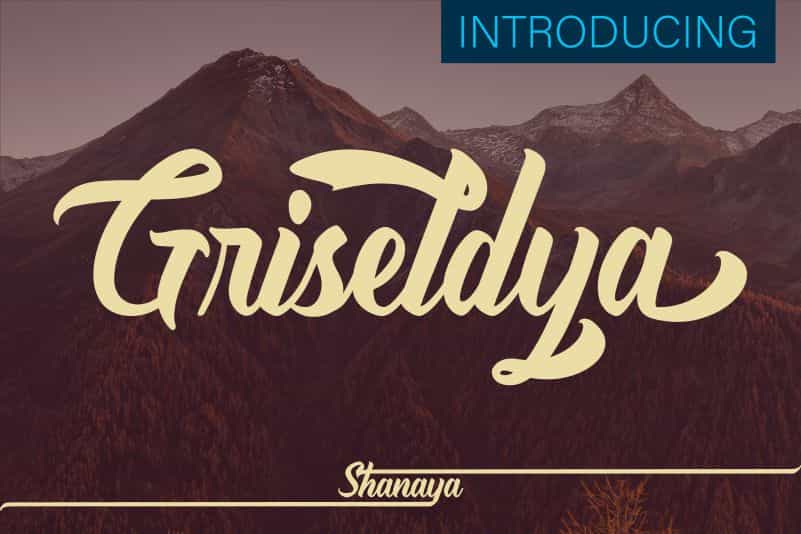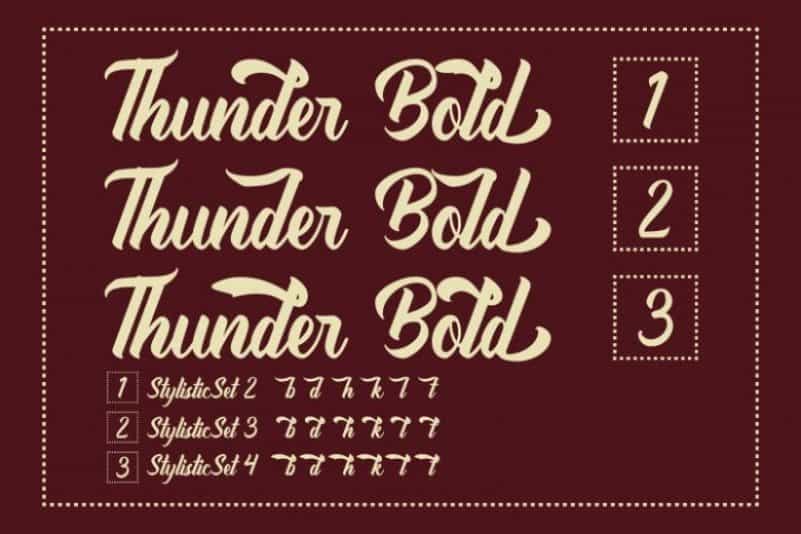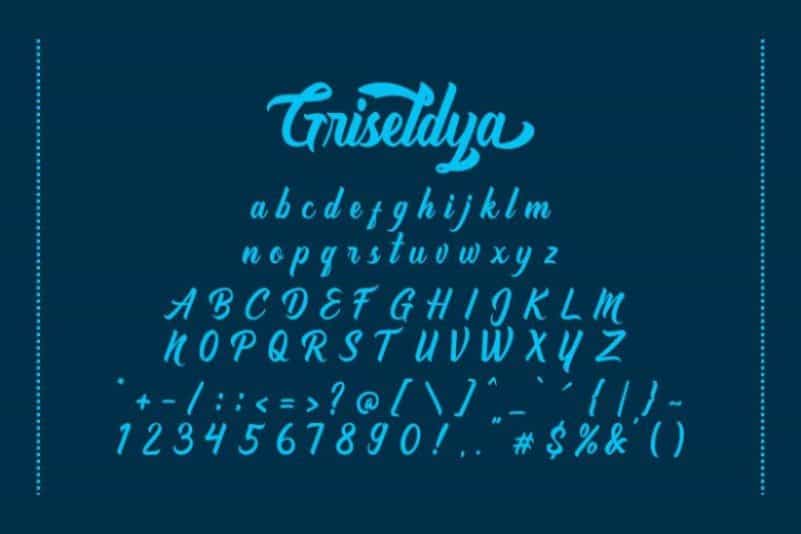
Discover Griseldya Script Font, part of the Commercial Brush Calligraphy Various collection—a versatile and unique font perfect for adding a personal touch to your projects. Download it for free and enjoy crafting designs with style, from invitations to social media posts. This font is available exclusively for personal use, giving you the freedom to create without limits. Unlock your creativity with Griseldya Script Font today!
Griseldya is a script font that has both sweetness and charm and will look delightful in any concept.